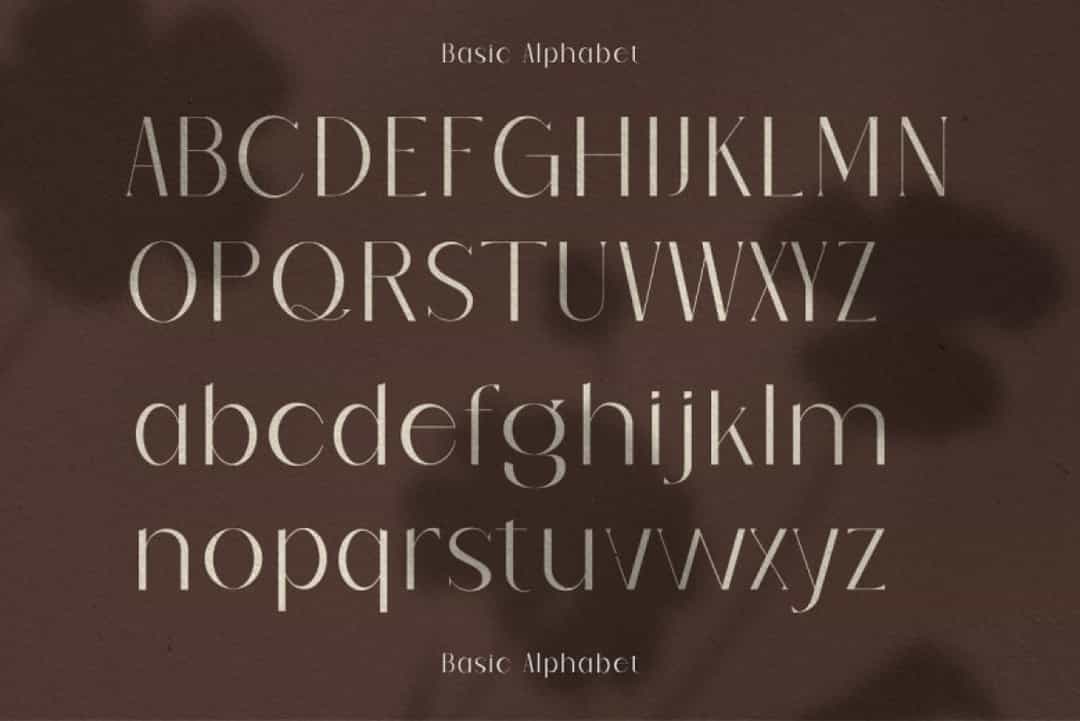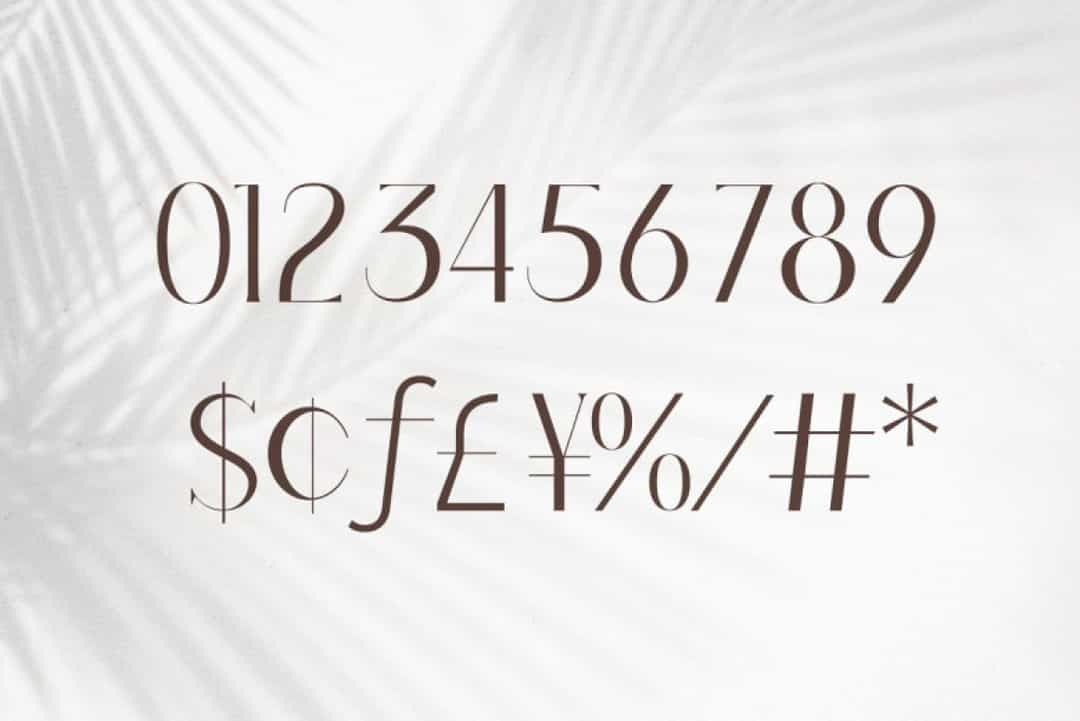
Barieta font is an ultra-thin and stylish modern sans serif font designed for people who appreciate unconventional designs. Perfect for headlines and large logos designs. Comprised of lowercase letters, uppercase letters and numbers this Barieta font can accommodate multiple languages seamlessly.